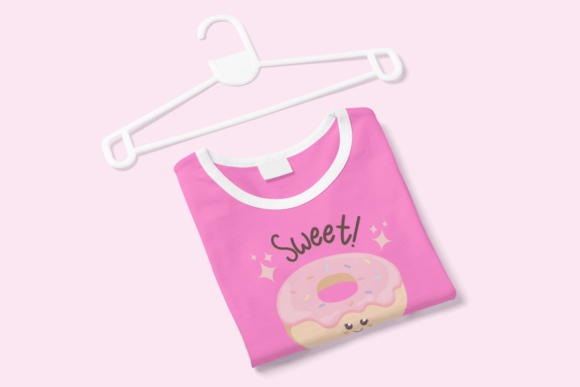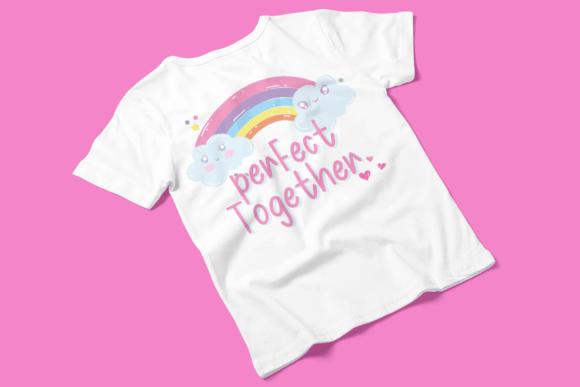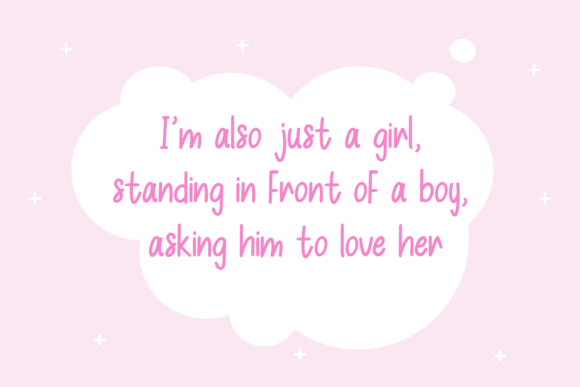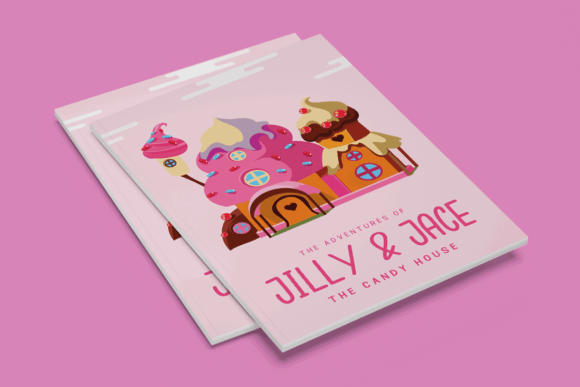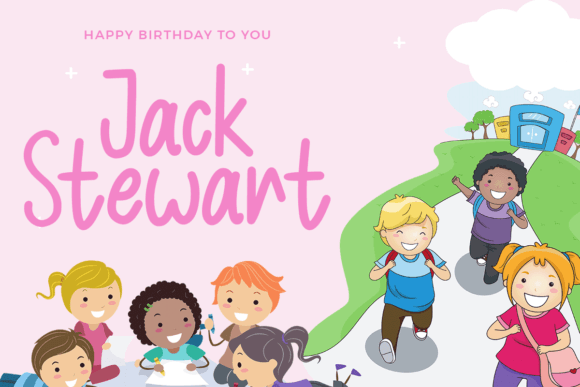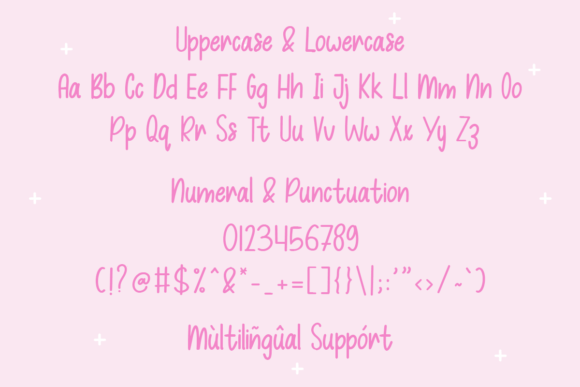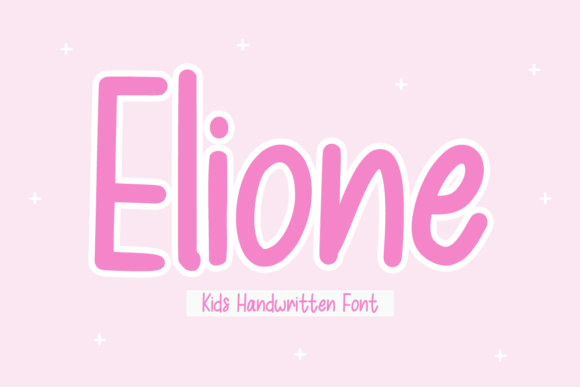
Introducing Elione Font: Elevate Your Designs with a Friendly and Beautiful Display Font
In the world of typography, a font can make or break a design. It’s the foundation upon which your creative vision is built, and choosing the right one can be a daunting task. If you’re on the hunt for a font that’s both modern and elegant, look no further than Elione Font. This stunning display font is designed to bring a touch of sophistication and friendliness to your projects, making it the perfect choice for designers and crafters alike.
The Characteristics of Elione Font
So, what makes Elione Font so special? For starters, its modern design is sleek and contemporary, making it perfect for projects that require a fresh and youthful feel. The font’s clean lines and elegant curves give it a sophisticated look that’s sure to impress, while its friendly tone makes it approachable and inviting.
One of the standout features of Elione Font is its versatility. It’s a display font that’s perfect for headlines, titles, and other attention-grabbing elements, but it’s also highly legible and can be used for body text and other smaller applications. This makes it an excellent choice for designers who want to create a cohesive look throughout their project.
Why Choose Elione Font?
So, why should you choose Elione Font for your next project? Here are just a few compelling reasons:
- Modern design: Elione Font boasts a sleek and contemporary design that’s perfect for projects that require a fresh and youthful feel.
- Elegant and sophisticated: The font’s clean lines and elegant curves give it a sophisticated look that’s sure to impress.
- Friendliness: Elione Font has a friendly tone that makes it approachable and inviting.
- Versatility: The font is highly versatile and can be used for a wide range of applications, from headlines and titles to body text and more.
- Ease of use: Elione Font is incredibly easy to use and can be easily mixed and matched with your favorite design elements.
How to Use Elione Font in Your Designs
One of the best things about Elione Font is how easy it is to use. The font can be easily mixed and matched with your favorite design elements to create a look that’s uniquely yours. Here are a few tips for incorporating Elione Font into your designs:
- Pair it with bold colors: Elione Font looks amazing when paired with bold, bright colors. Try pairing it with a bold red or blue to create a statement piece.
- Use it for headlines: Elione Font is perfect for headlines and titles. Its large size and bold design make it perfect for grabbing attention.
- Mix it with other fonts: Don’t be afraid to mix Elione Font with other fonts to create a unique look. Its clean design makes it easy to pair with other fonts.
Who is Elione Font for?
Elione Font is perfect for designers and crafters who want to add a touch of elegance and sophistication to their projects. It’s ideal for:
- Graphic designers: Elione Font is perfect for graphic designers who want to create stunning visual elements for their clients.
- Crafters: Elione Font is also great for crafters who want to add a personal touch to their projects.
- Small business owners: If you’re a small business owner looking to create a professional brand, Elione Font is an excellent choice.
In conclusion, Elione Font is a friendly and beautiful display font that’s perfect for designers and crafters who want to add a touch of elegance and sophistication to their projects. Its modern design, elegant curves, and friendly tone make it an excellent choice for a wide range of applications. Whether you’re creating a logo, brochure, or website, Elione Font is sure to impress. So why wait? Download Elione Font today and take your designs to the next level!